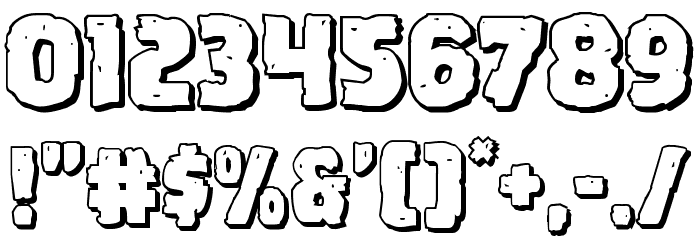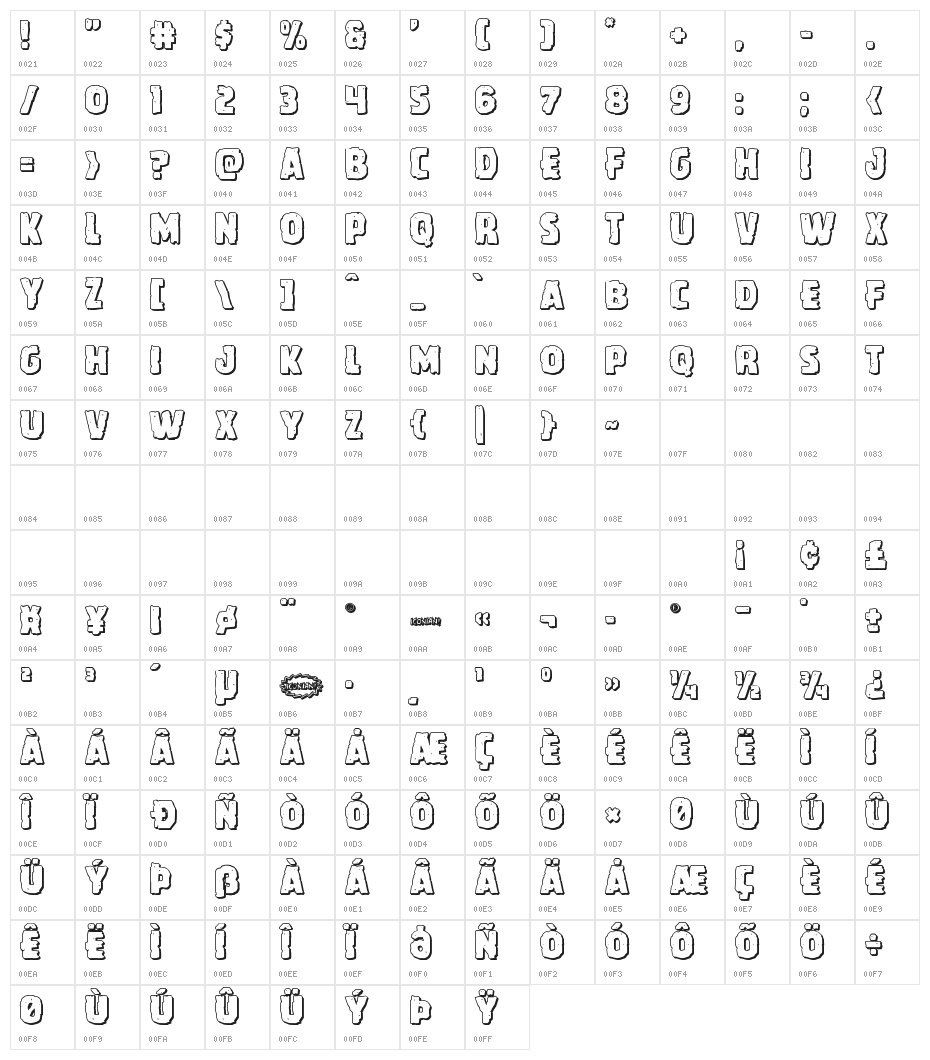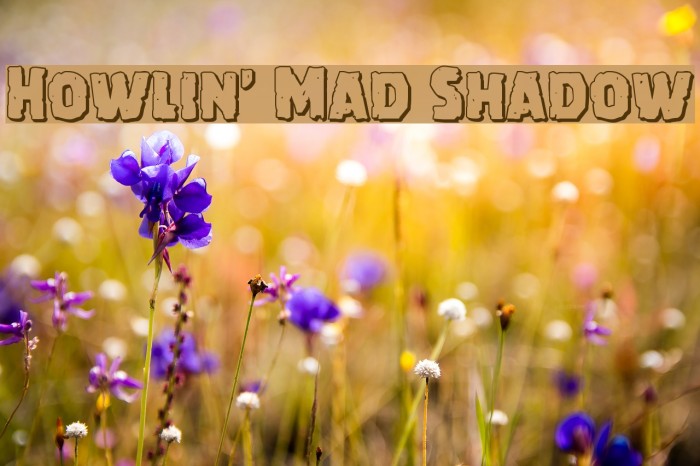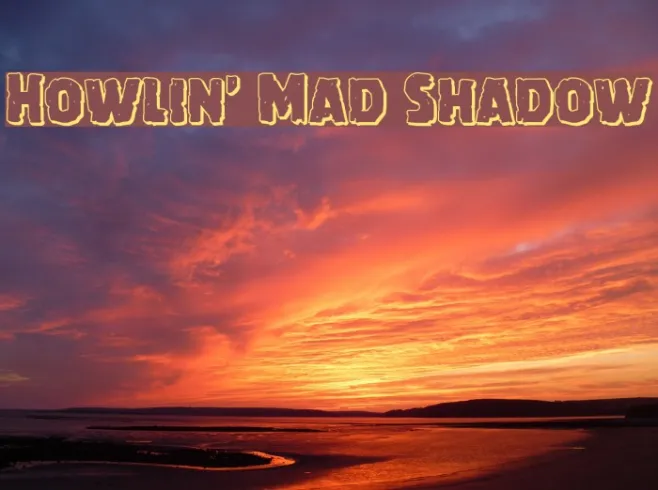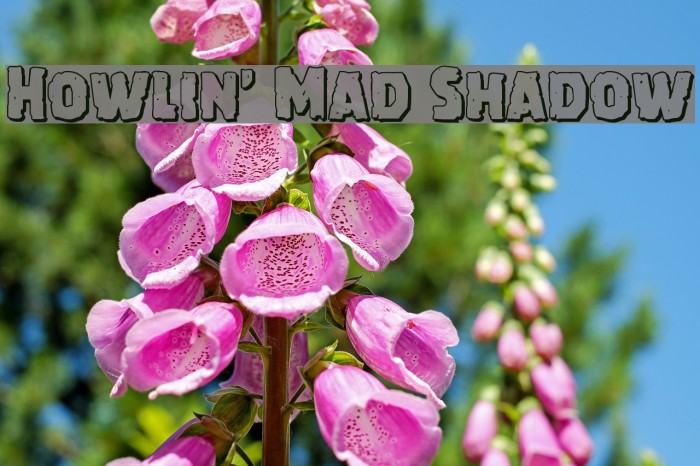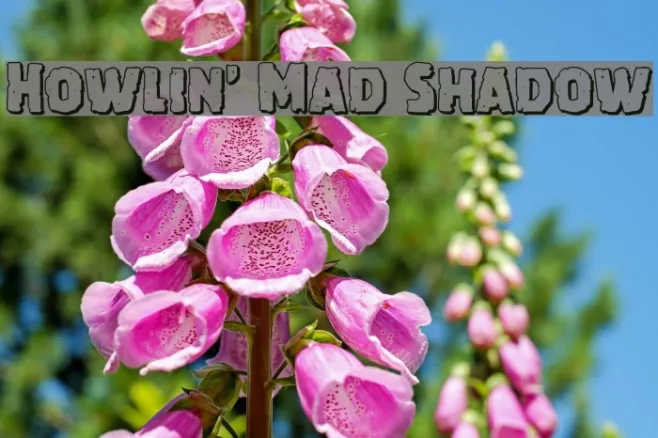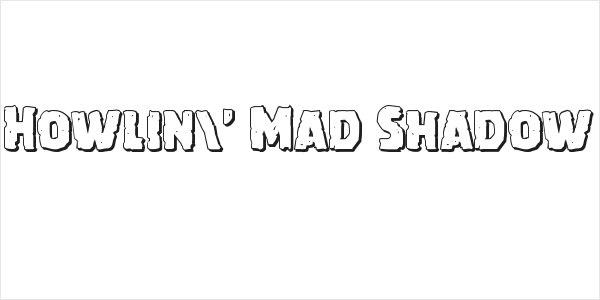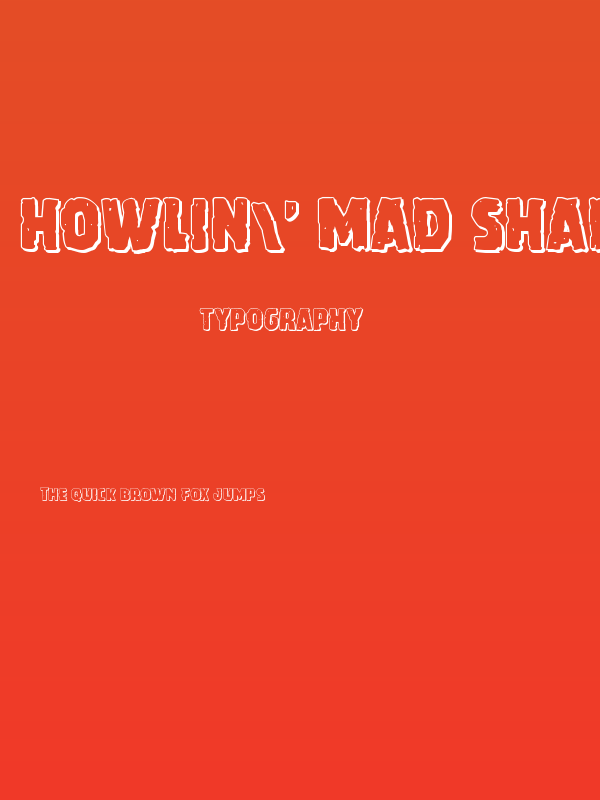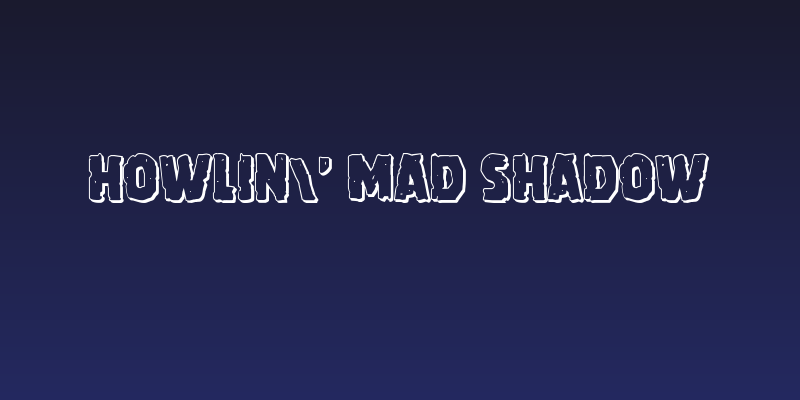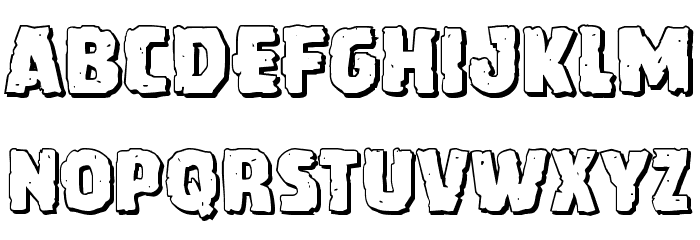
Howlin' Mad Shadow Font
Howlin' Mad Shadow Description
This font features a bold, playful design with a rugged, shadowed outline that gives it a three-dimensional appearance. The characters are chunky and irregular, with a hand-drawn feel that adds a sense of whimsy and creativity. The shadow effect creates depth, making the letters stand out prominently. This style is reminiscent of comic book lettering or graffiti, with a slightly distressed texture that adds to its unique charm. The font is highly legible, even with its decorative elements, making it suitable for eye-catching designs.
| Overall Style | Playful, Creative, Comic |
| Proposed Projects | Ideal for comic books, children's book covers, posters, and playful branding. |